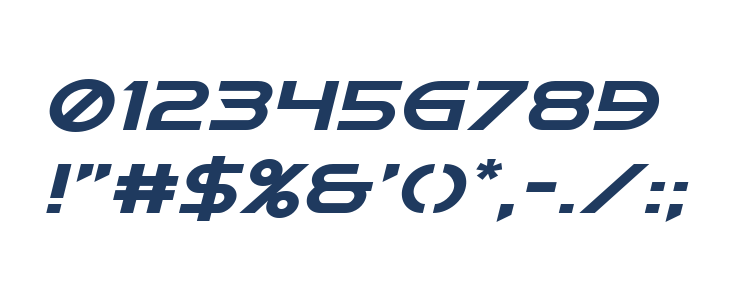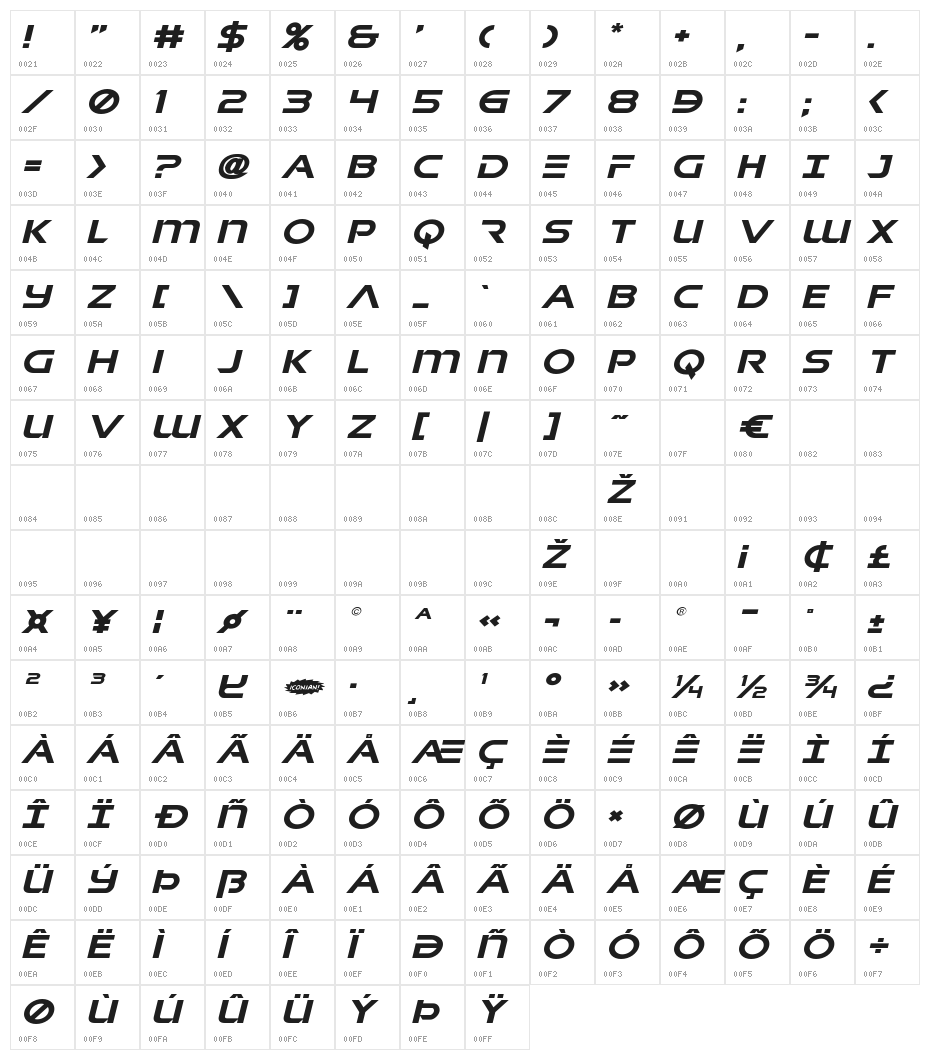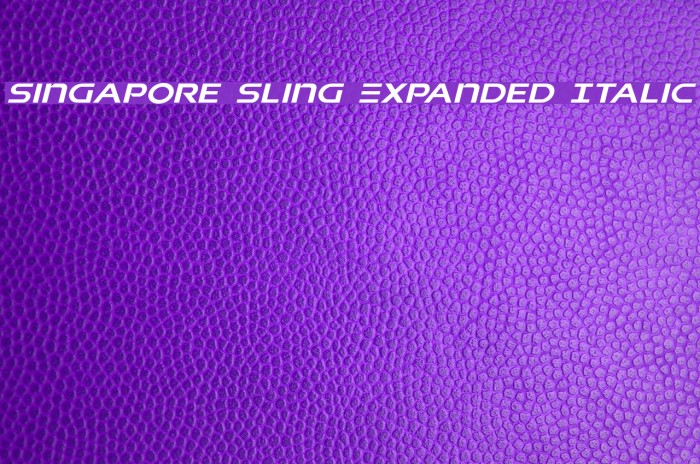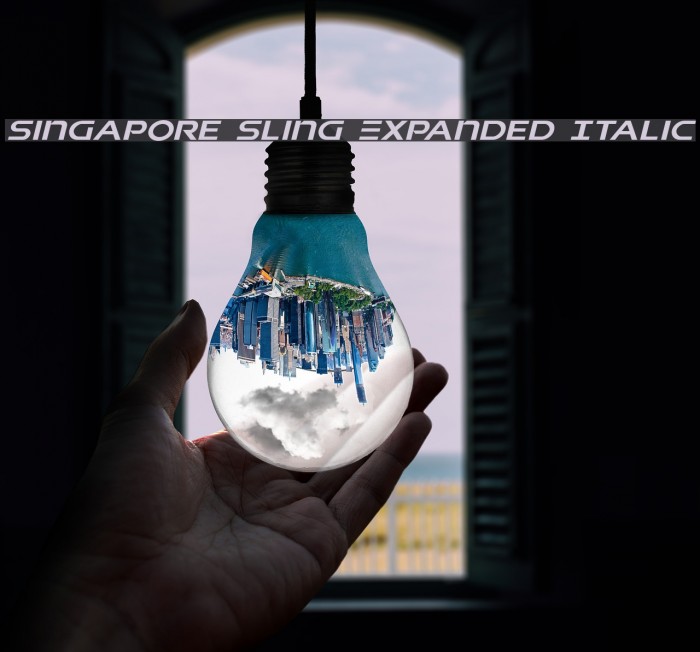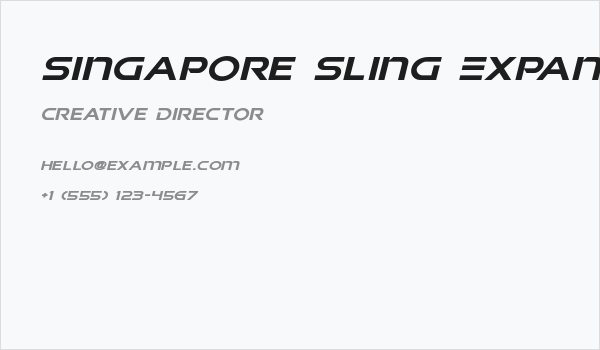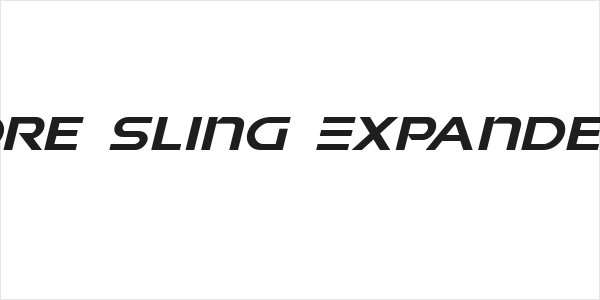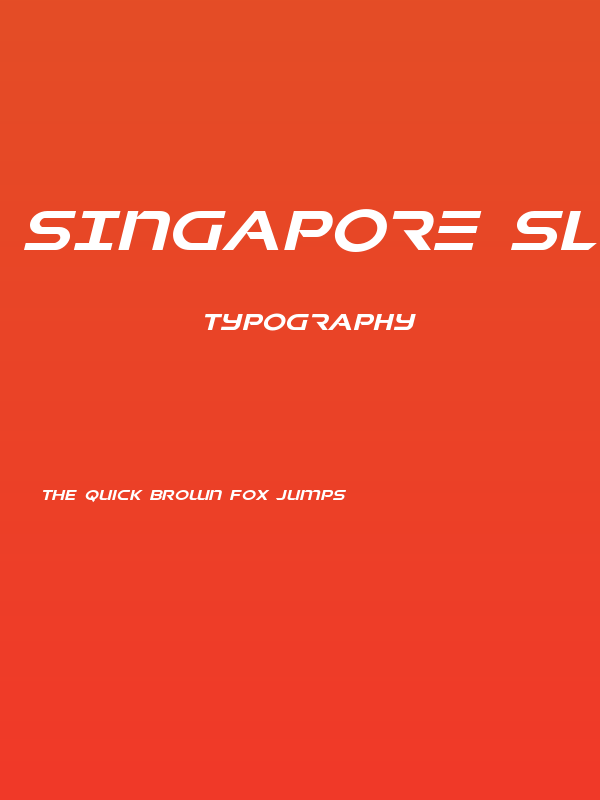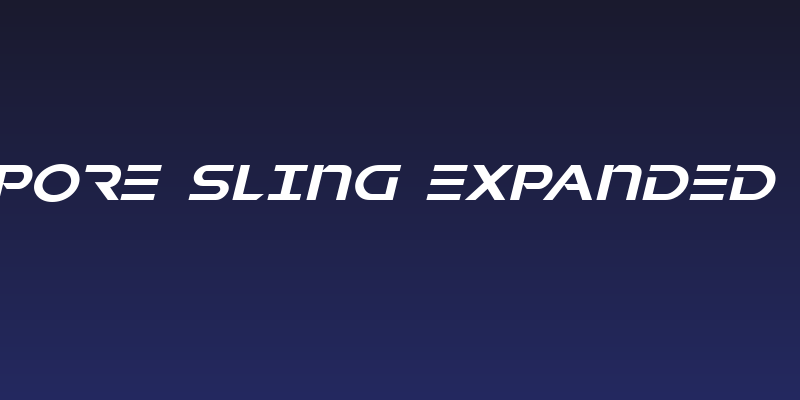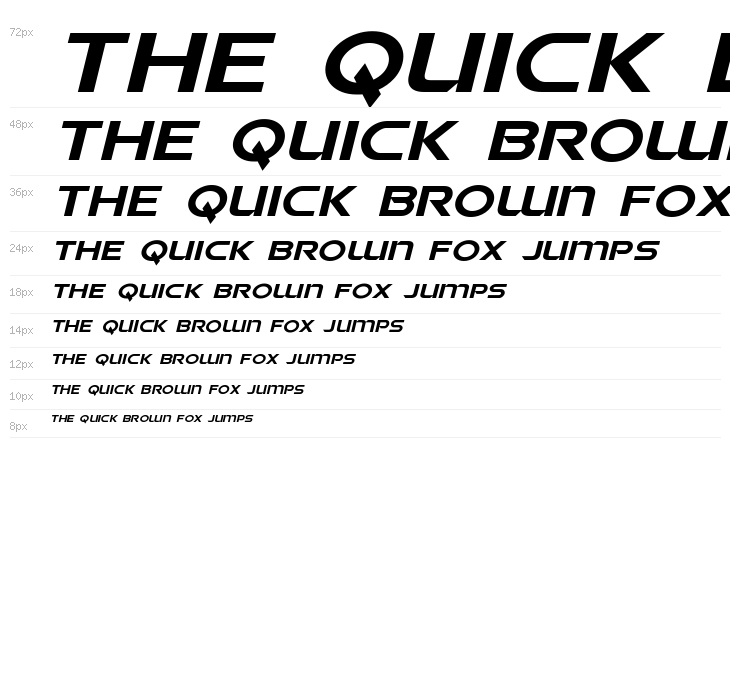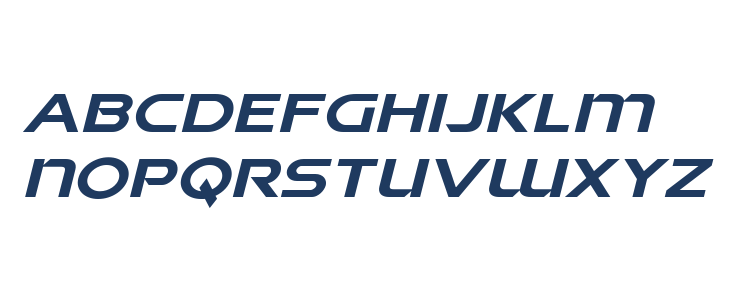
Singapore Sling Expanded Italic Font
Singapore Sling Expanded Italic Description
This font features a modern and dynamic style with a distinct italic slant, giving it a sense of motion and energy. The characters are expanded, providing a wide and open appearance that enhances readability while maintaining a sleek and stylish look. The strokes are consistent in thickness, offering a medium contrast that balances boldness with elegance. The design is clean and contemporary, making it suitable for a variety of applications where a modern aesthetic is desired. The special characters and numbers are designed to match the overall style, ensuring a cohesive look across all text elements.
| Use Case | Headlines, Logos, Advertising |
| Proposed Projects | Ideal for branding, advertising, and headlines where a modern and energetic look is needed. |